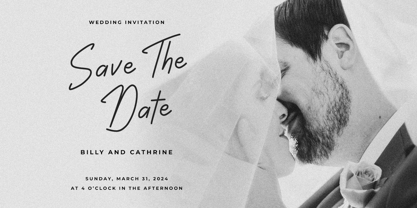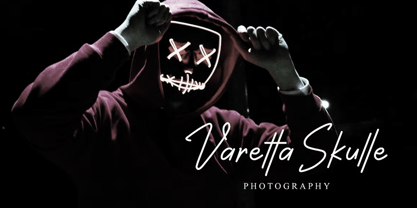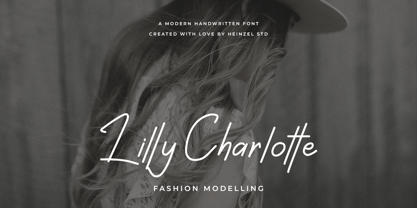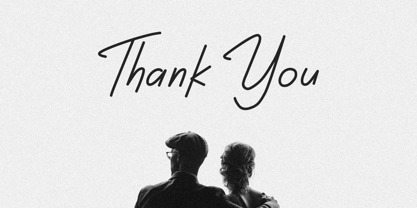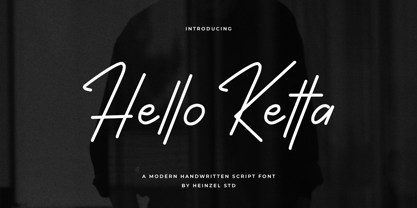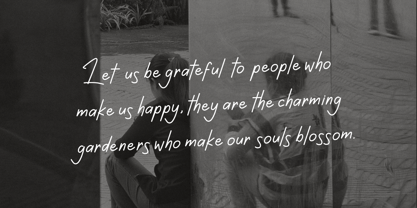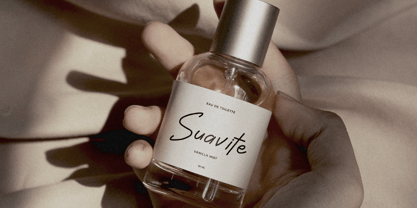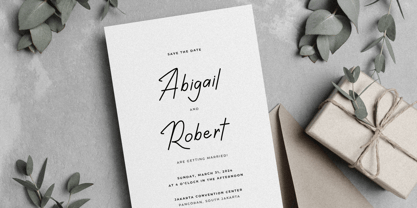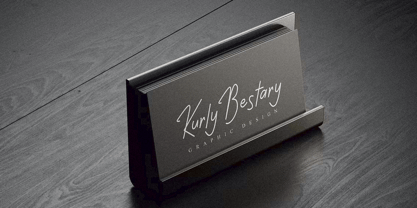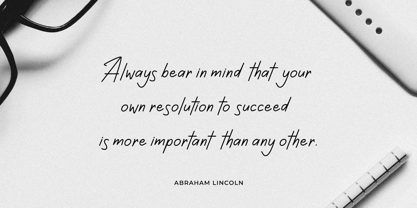
Hello Ketta
by Heinzel Std
The Hello Ketta Font Family was designed by Nofi Sofyan Hadi and published by Heinzel Std. Hello Ketta contains 1 styles. More about this family
Hello Ketta style - a new modern & fresh font with a handwritten style make this font looks elegant, natural, stylish and perfect for any awesome projects that need handwriting taste. Hello Ketta would perfect for photography, watermark, social media posts, advertisements, logos & branding, invitation, product designs, label, stationery, wedding designs, product packaging, special events or anything that need handwriting taste.